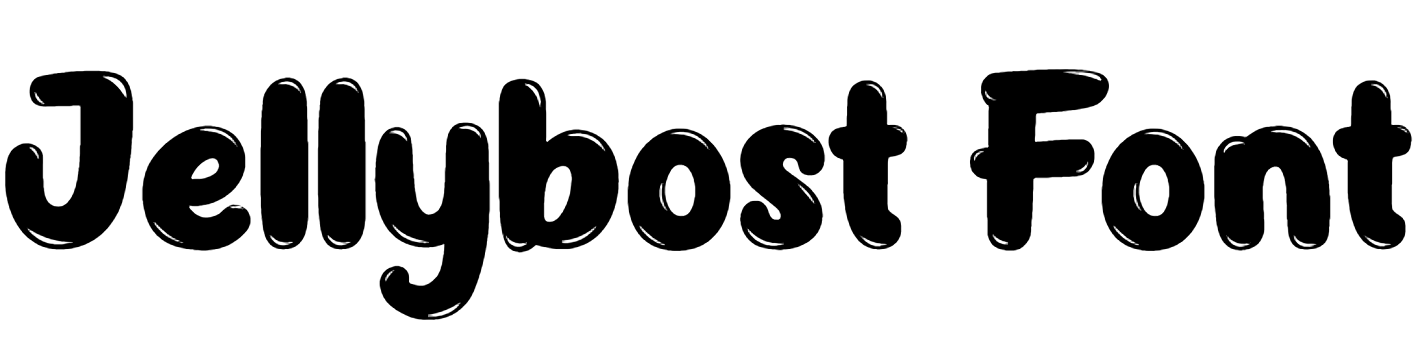
Jellybost
Jellybost is a cartoon font created by Holydie Sudio ( Yugo Priyat Moko ) (2019). It has a cheerful, hand-drawn look that makes people smile before they even read the words. You can download it for free and test it with your own words in the preview above.
- Designer: Holydie Sudio ( Yugo Priyat Moko )
- Characters: A–Z, a–z, 3 digits and basic punctuation
What You Can Type With Jellybost
Jellybost has the full alphabet in upper and lowercase. Only 3 of the ten numbers are included, so double-check dates and prices before you print anything. Common punctuation such as ! and ? is included as well. It doesn't include accented letters such as é or ñ, which makes it an English-only font.
Ligatures and Smart Letters in Jellybost
Jellybost is a natural fit for kids' books, birthday invites and fun YouTube thumbnails. Cartoon fonts are great for short, fun lines. If you place it over a busy photo, add a thick outline or a drop shadow so it stays readable.
Does Jellybost have ligatures?
Yes. Jellybost has ligatures that turn on by themselves in most design apps and browsers, so you don't need to do anything special.
Does Jellybost support accented letters?
No. Jellybost has no accented letters such as é, ñ or ü, so it's best for English text.
Does Jellybost have numbers?
Only 3 of the ten digits. Check dates, prices and phone numbers in the preview above, and use a second font for any missing ones.